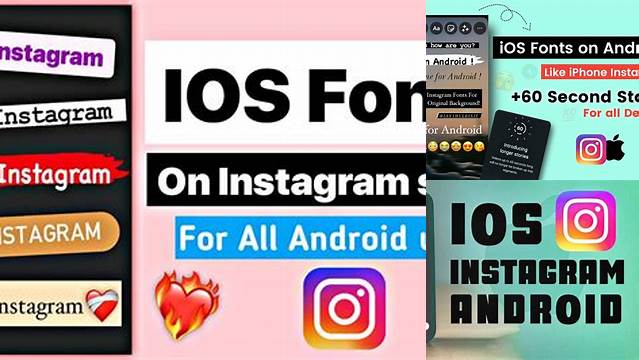
Instagram IOS Fonts On Android: A Complete Guide
Hey guys! Ever scrolled through Instagram and been envious of those sleek, stylish fonts used on iOS devices? You're not alone! Many Android users crave that same aesthetic, and the good news is, you can achieve it! In this comprehensive guide, we'll dive deep into the world of Instagram iOS fonts APKs, exploring how to get those coveted fonts on your Android device. We'll cover everything from what these APKs are, to how to safely download and install them, and even explore some alternative methods for achieving that perfect iOS font look on your Instagram profile. So, buckle up and let's get started!
Instagram iOS fonts are highly sought after because of their clean, modern, and visually appealing design. These fonts, often associated with the sleek interface of Apple's iOS, offer a refreshing alternative to the standard Android fonts. The visual appeal of these fonts stems from their legibility and aesthetic harmony, which can significantly enhance the overall presentation of Instagram stories, bios, and captions. Using a stylish font can help your content stand out, capturing the attention of your audience and making your profile more memorable. Furthermore, the desire for iOS fonts on Android is also driven by a need for customization. Android users often seek ways to personalize their devices and social media presence, and changing the font is a simple yet effective way to do so. By adopting iOS fonts, users can give their Instagram profile a touch of sophistication and elegance that aligns with their personal brand or style. This trend underscores a broader movement towards individualized digital expression, where users leverage every available tool to curate their online persona. Whether it's for branding purposes, aesthetic preference, or simply the joy of customization, the allure of Instagram iOS fonts for Android users remains strong and continues to drive the demand for solutions like font-modifying APKs.
So, what exactly are these Instagram iOS fonts APKs we're talking about? Let's break it down. APK stands for Android Package Kit, which is the file format that Android uses to distribute and install mobile apps. Think of it as the Android equivalent of an .exe file on Windows. Now, when we talk about Instagram iOS fonts APKs, we're referring to modified versions of apps, usually third-party apps, that allow you to change the font used in your Instagram bio, captions, and stories to fonts that are typically found on iOS devices. These font-modifying APKs work by integrating iOS-style fonts into an Android-compatible format. This integration often involves extracting the font files from iOS systems and repackaging them into an application that can be installed on Android devices. Once installed, these APKs enable users to apply the new fonts across various text fields within Instagram, giving their profile a distinctive, iOS-inspired appearance. However, it's crucial to understand that these APKs are not official Instagram products. They are developed by third-party developers who aim to provide customization options that are not natively available in the official Instagram app. As such, the use of third-party APKs for fonts carries certain risks, which we'll discuss later in this guide. These risks include the potential for malware, privacy breaches, and compatibility issues with your device or Instagram itself. Therefore, it's essential to exercise caution and only download APKs from trusted sources to minimize these risks. Despite these potential drawbacks, the appeal of these APKs lies in their ability to offer a simple solution for users looking to enhance their Instagram aesthetic with iOS fonts.
Okay, so we know what these APKs are, but why the hype? Why are so many Android users eager to get their hands on iOS fonts for their Instagram? There are a few key reasons. First and foremost, aesthetics play a huge role. iOS fonts, like San Francisco (the system font on iOS), are often perceived as cleaner, more modern, and more visually appealing than the default fonts available on Android. This preference stems from the sleek design and attention to detail that Apple is known for. The crisp lines and balanced spacing of iOS fonts contribute to a polished and professional look, which many users want to emulate on their Instagram profiles. Another significant factor is branding and personalization. In the competitive world of social media, standing out is crucial. Using a unique font can help you create a distinct visual identity that sets you apart from the crowd. By adopting iOS fonts, users can add a touch of sophistication and elegance to their content, aligning their online persona with a specific aesthetic. This can be particularly important for businesses and influencers who rely on Instagram to build their brand and engage with their audience. Moreover, the desire for iOS fonts reflects a broader trend of cross-platform aesthetic preferences. As social media users interact with content across different devices and operating systems, they often develop a fondness for certain design elements, regardless of the platform. The popularity of iOS fonts on Android Instagram is a testament to this trend, highlighting the universal appeal of well-designed typography. Finally, the ease of customizing fonts on Instagram through APKs and other methods contributes to their popularity. For users who are not satisfied with the default options, these tools provide a straightforward way to personalize their profiles and express their creativity.
Finally, there's the issue of stability and updates. Font-modifying APKs are often developed by small teams or individual developers, which means they may not receive regular updates or bug fixes. This can lead to instability and compatibility issues over time, especially as Instagram releases new versions of its app. If you rely on a font-modifying APK, you may find that it stops working or causes problems after an Instagram update. Therefore, it's important to choose APKs from developers who have a good track record of providing updates and support.
Okay, so you're aware of the risks, but you're still keen to try out those iOS fonts. That's cool! Just remember to proceed with caution and follow these tips to safely download and install Instagram iOS fonts APKs:
- Choose Reputable Sources: This is the golden rule! Only download APKs from trusted sources. Steer clear of shady websites and stick to well-known app stores or websites with a solid reputation. Some popular options include APKMirror, APKPure, and F-Droid. These platforms have measures in place to vet the apps they offer, reducing the risk of malware.
So there you have it, guys! A comprehensive guide to Instagram iOS fonts APKs and alternative methods for getting those coveted fonts on your Android device. We've covered what these APKs are, why people want them, the risks involved, how to safely download and install them, and explored some safer alternative methods. Ultimately, the decision of whether or not to use a font-modifying APK is a personal one. If you choose to go that route, remember to prioritize safety and follow our tips for downloading and installing APKs from trusted sources. However, if you're wary of the risks, the alternative methods we've discussed, such as font generator websites and keyboard apps, offer a safe and convenient way to enhance your Instagram aesthetic. Remember, the goal is to express your creativity and make your Instagram profile stand out, so choose the method that works best for you and your comfort level. Happy posting!